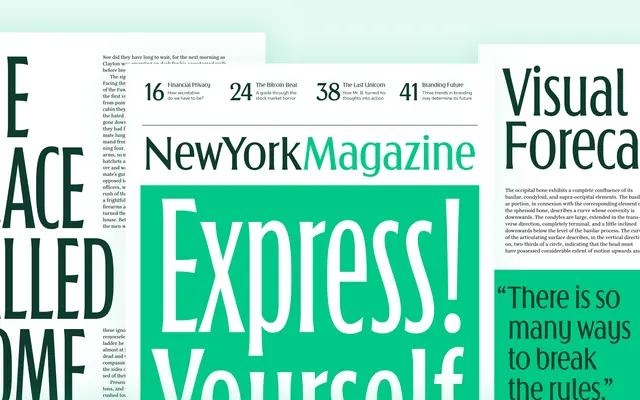
Arnika
A four-width serif family by Michael Hochleitner, built for fashion and beauty publishing with crisp detailing across Regular, SemiCondensed, Condensed and Compressed cuts.
Designed by Michael Hochleitner, Arnika offers four width variants from Regular through to Compressed, giving designers flexibility across single-column and tight editorial layouts. Fine, precise details lend the typeface a confident elegance without sacrificing delicacy, making it well suited to beauty products, fashion magazines and luxury branding. A variable font is included free with a complete family licence, and OpenType features include small caps, arrows, superior and inferior figures and contextual alternates.
Arnika presents crisp, refined letterforms with fine detailing consistent with a transitional serif tradition, positioned for fashion and beauty contexts where elegance and precision are expected.